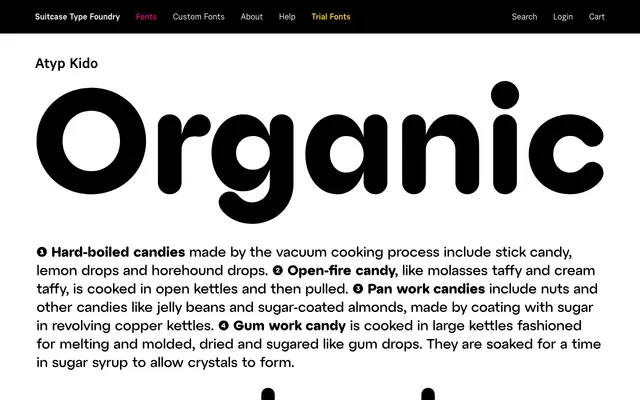
A companion typeface to the Atyp family from Prague-based Suitcase Type Foundry, extending the geometric sans system under a distinct variant name.
Atyp Kido sits within Suitcase Type Foundry's Atyp type system, which spans 25 fonts across its related families. The page content available is limited, but its positioning alongside Atyp and Atyp BL suggests it functions as a stylistic or optical variant within an established geometric sans framework. Suitcase Type Foundry is a Czech foundry known for structured, contemporary type design.
Related to the Atyp and Atyp BL families from Suitcase Type Foundry, suggesting a geometric or neo-grotesque sans lineage; the 'Kido' suffix implies a variant or companion cut within that system.